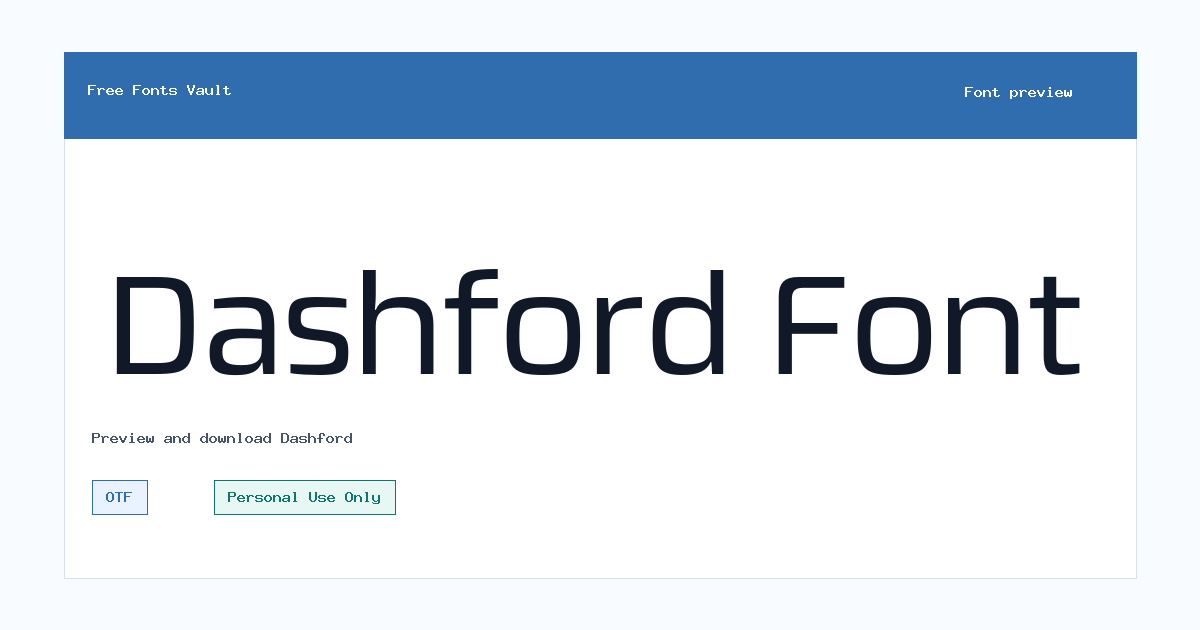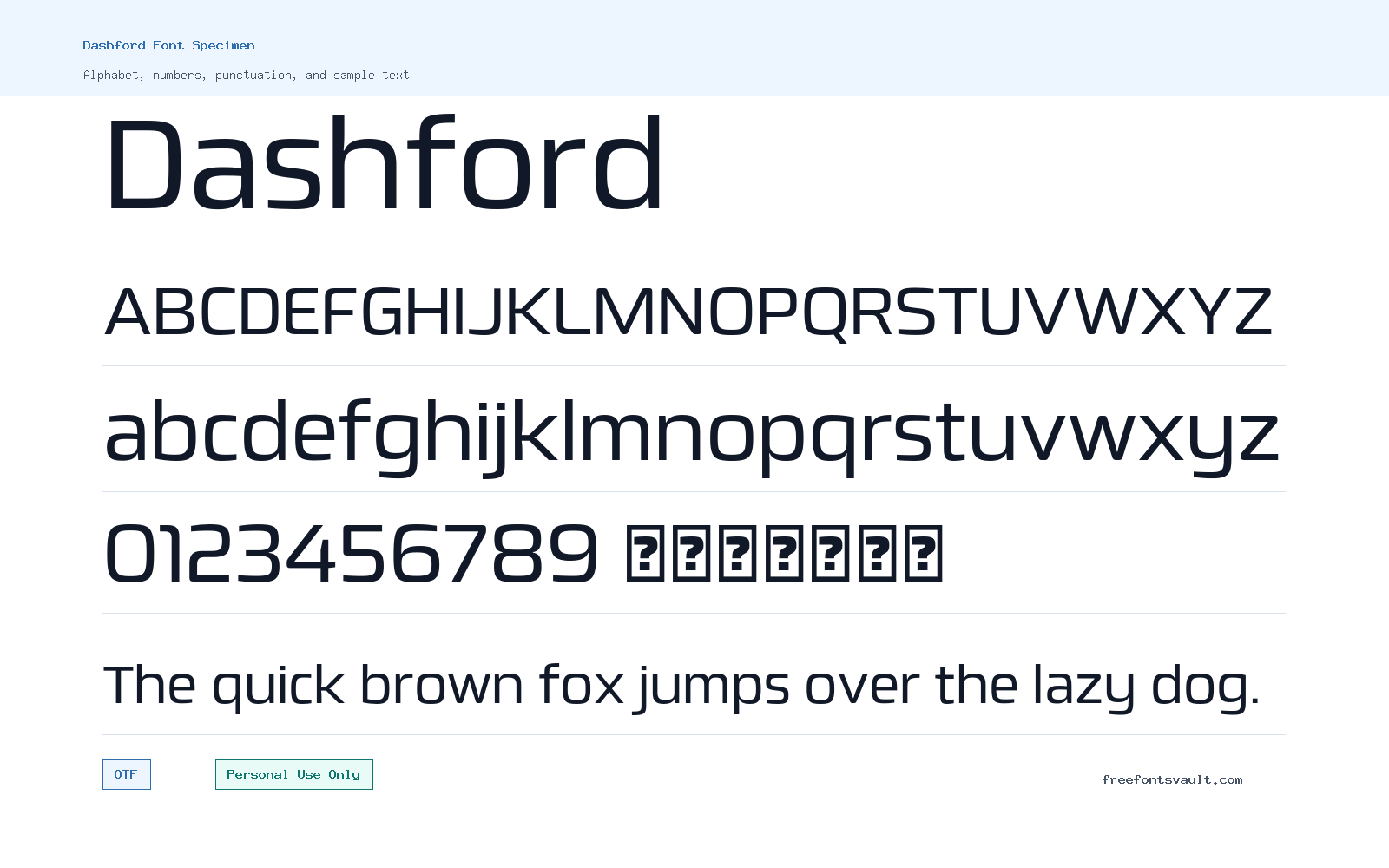
Dashford
- Designer Zohan Nur Muchlis
- Foundry Zafara Studios
Dashford font.
About Dashford Font
Dashford is listed as a sans serif font, so visitors should expect it to work best where clear letterforms and simple structure matter more than decorative detail. Because only one regular-style demo file is listed, it is best to preview it with the exact words you plan to use rather than assuming it has a full multi-weight family. Try short headings, names, labels, and a few lines of body text to see how the spacing, punctuation, and uppercase letters behave.
- Sans serif font family listed under the name Dashford
Who designed Dashford?
Dashford is credited to Zohan Nur Muchlis, with Zafara Studios listed as the foundry.